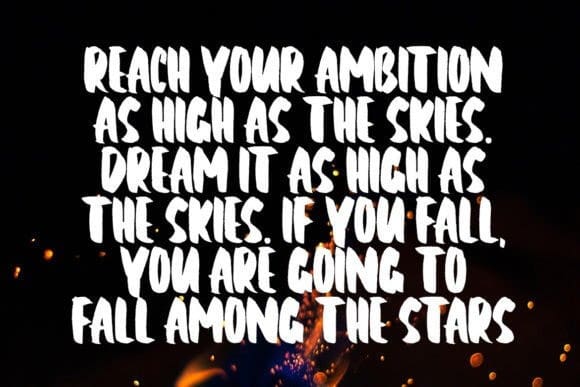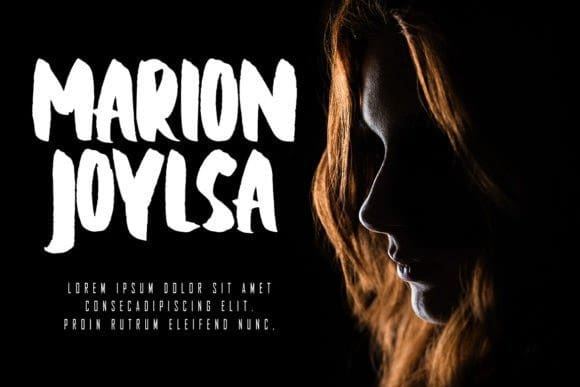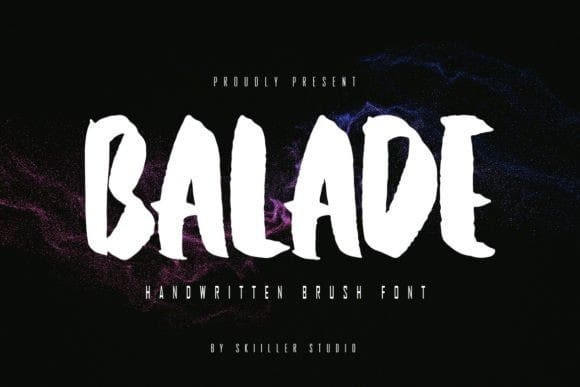
Balade Brush Font
Balade Brush Font is a modern font that was inspired by the typography of natural brushes. Written in quick motion using a brush pen, it’s a bit dry and looks realistic. It is suitable for commercial needs or magazine fashion design, product packaging, headlines, posters, merchandise, social media & other greeting cards.